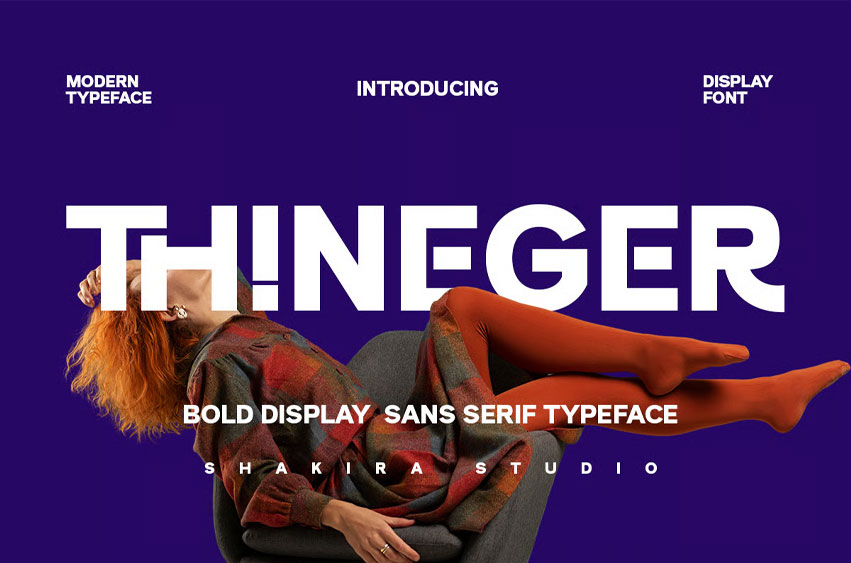
Thineger Font is a strong, clean sans-serif display typeface built for bold branding and attention-grabbing headlines.
Its heavyweight, geometric structure, and sharp terminals make it the ultimate choice for designs that demand power and clarity. From startup branding to futuristic fashion ads, Thineger delivers impactful typography with modern edge and commercial energy.
Built to stand out. Perfect for disruption.
• Startup and tech branding
• Editorial magazine titles
• YouTube thumbnails
• Display headline posters
• Urban branding designs
• Music and entertainment graphics
Thineger brings a heavy attitude to the clean sans serif tradition.